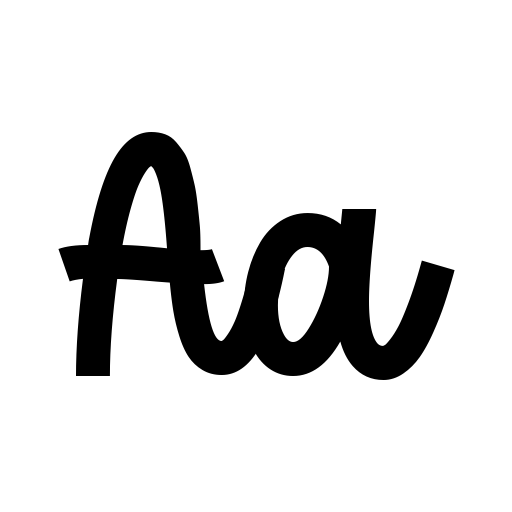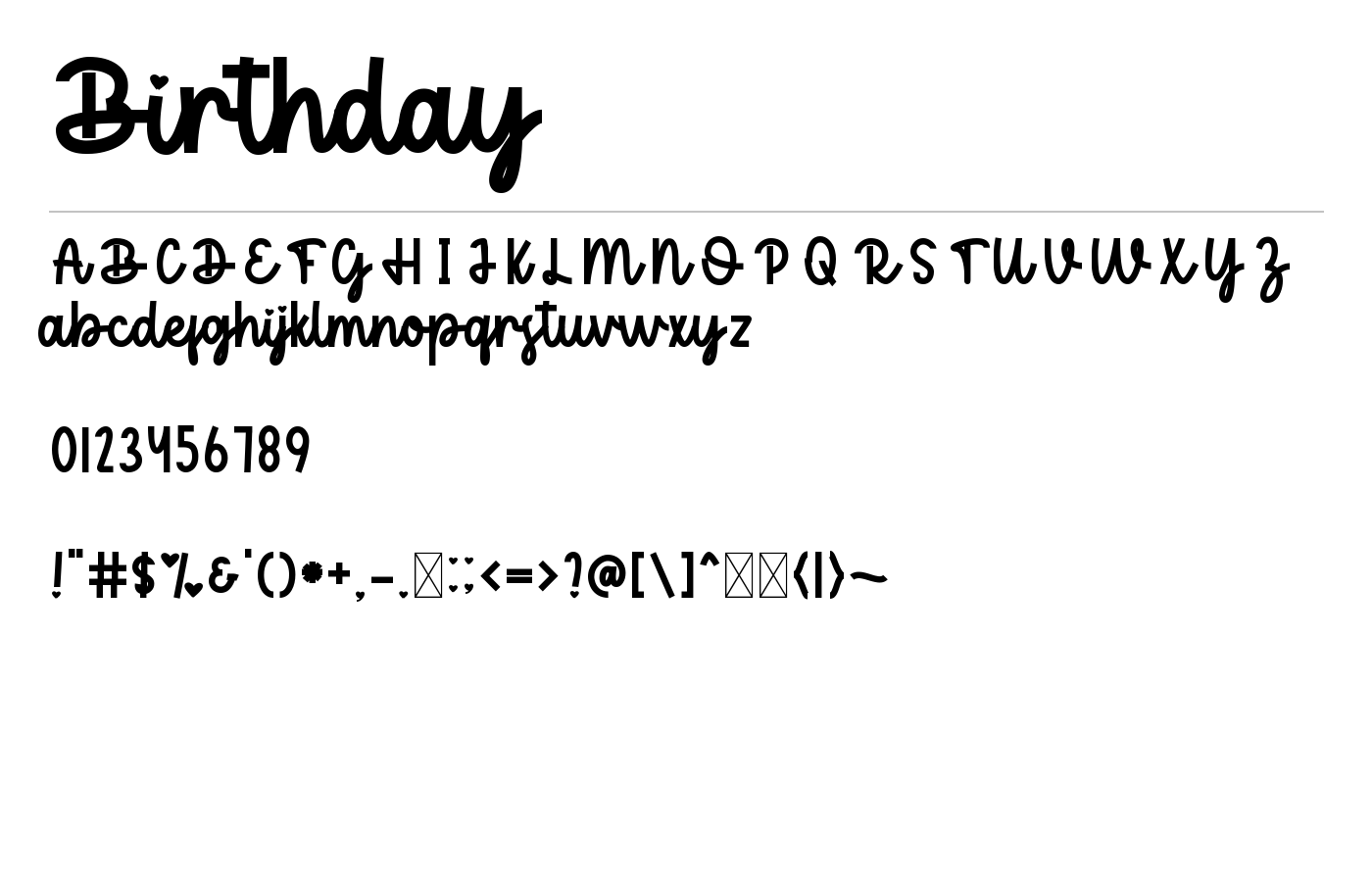
Birthday Font is a playful, hand-drawn script with a casual and friendly vibe, characterized by its smooth, rounded strokes and moderate contrast. It features quirky details like heart shapes on some characters, adding a charming and festive feel ideal for celebrations, invitations, and fun branding projects. This font works best in headlines, logos, and designs where a warm, approachable, and joyful mood is desired.
Birthday Font
About Birthday Font